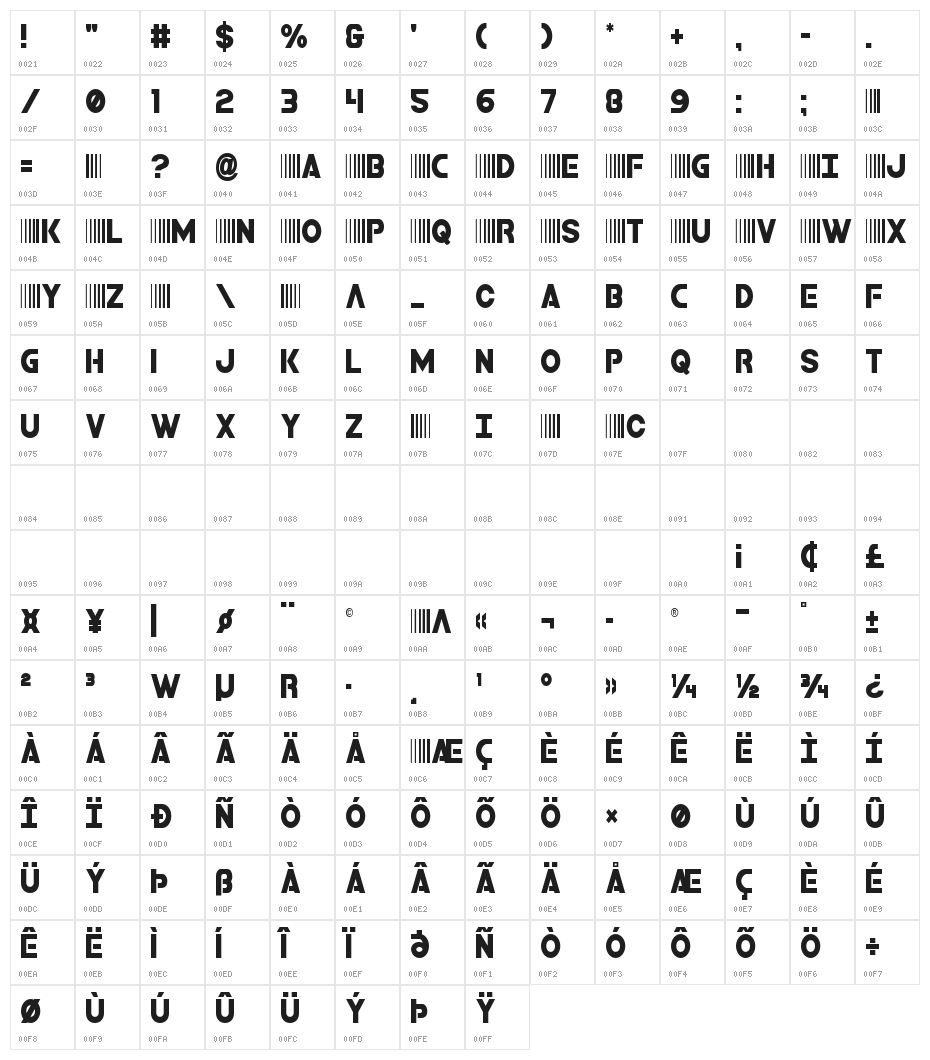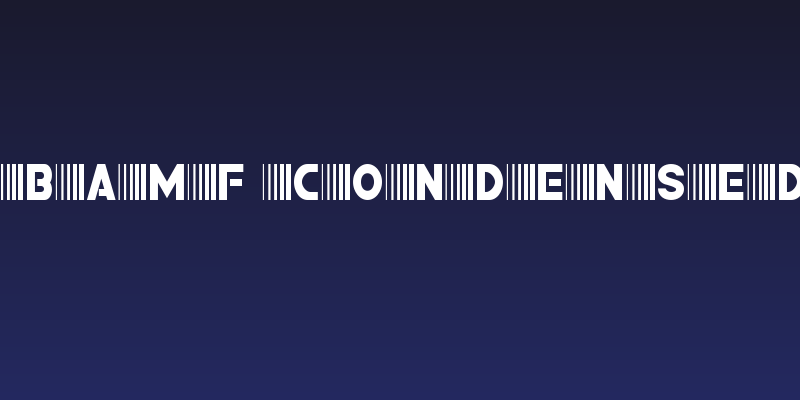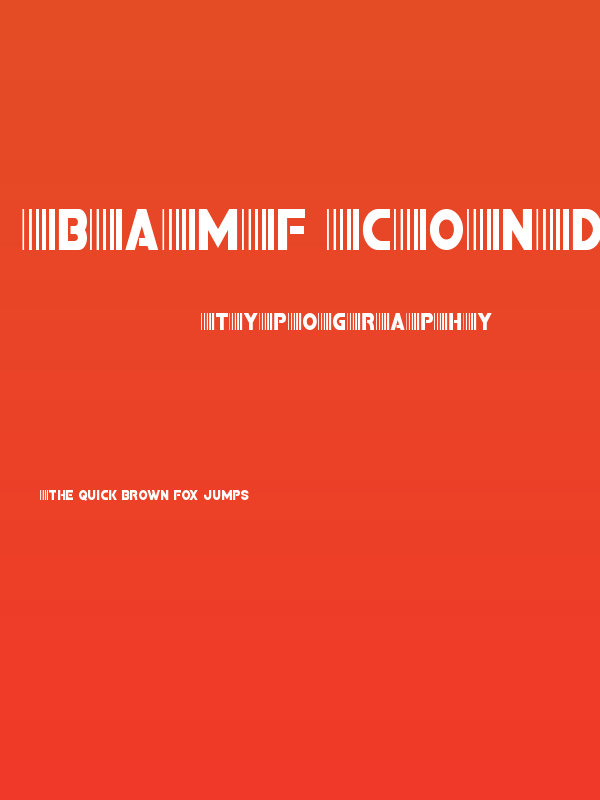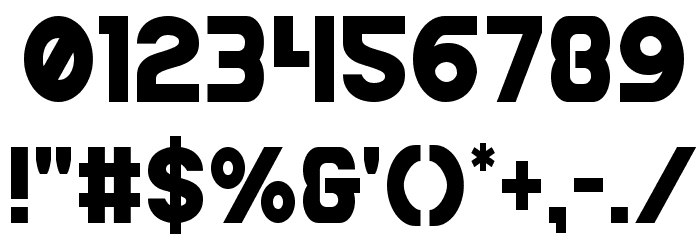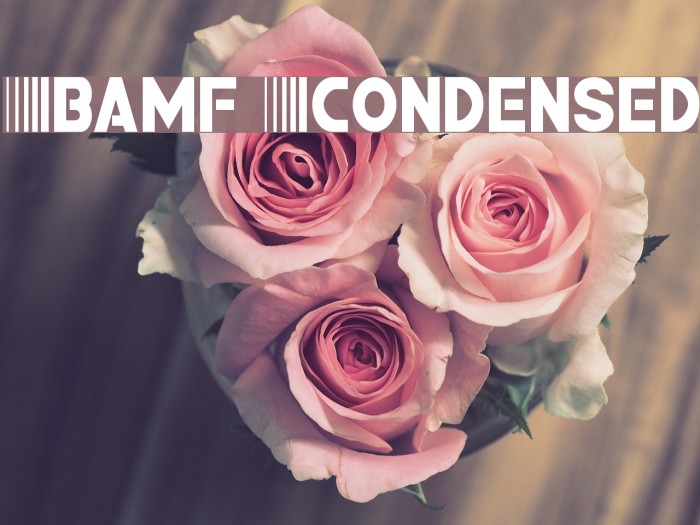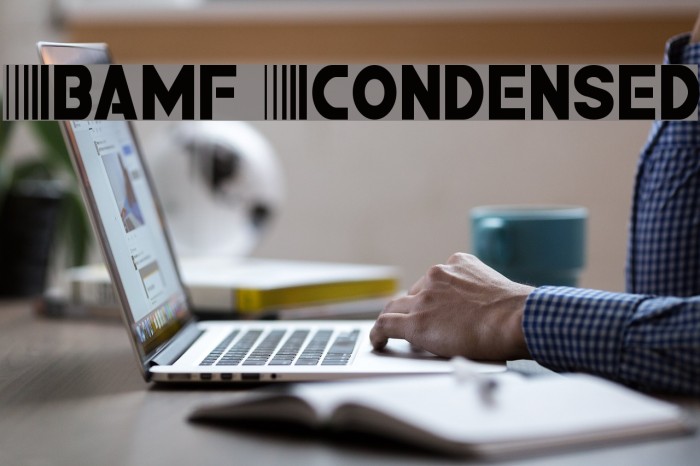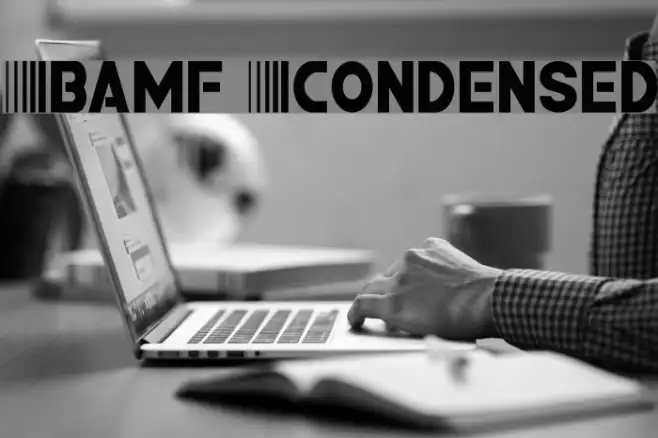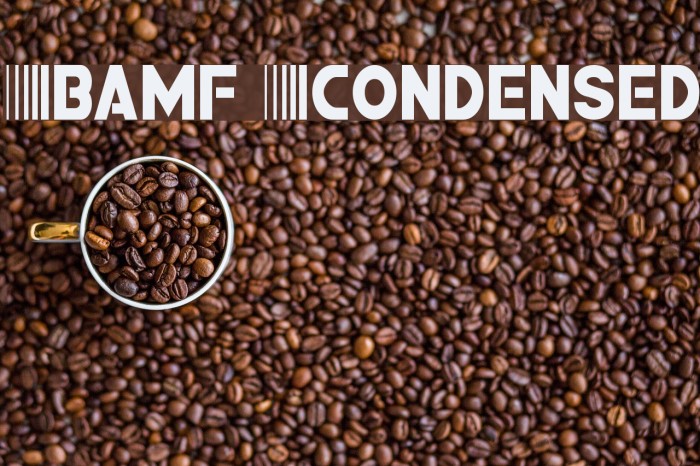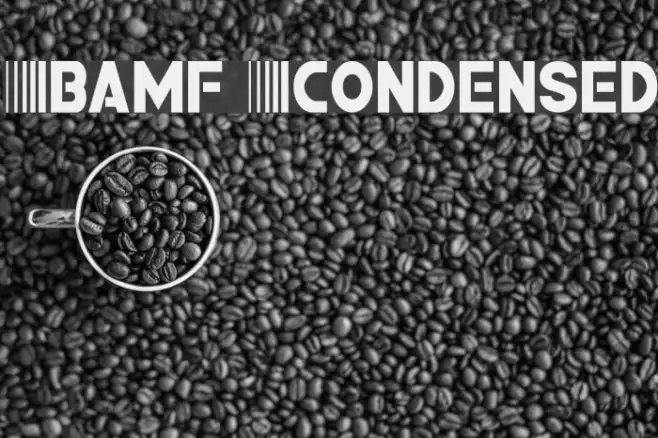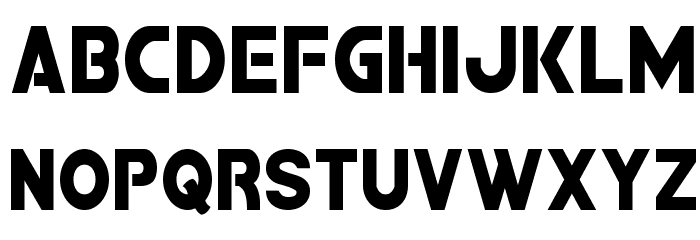
Bamf Condensed Font
Bamf Condensed Description
This font features a bold, geometric design with a strong emphasis on vertical lines, creating a striking and modern appearance. The uppercase letters are particularly distinctive, with a condensed form that maximizes impact while maintaining readability. The numbers and special characters follow the same bold and structured style, ensuring consistency across all elements. The font's design is clean and minimalistic, making it suitable for a variety of applications where a contemporary and assertive look is desired.